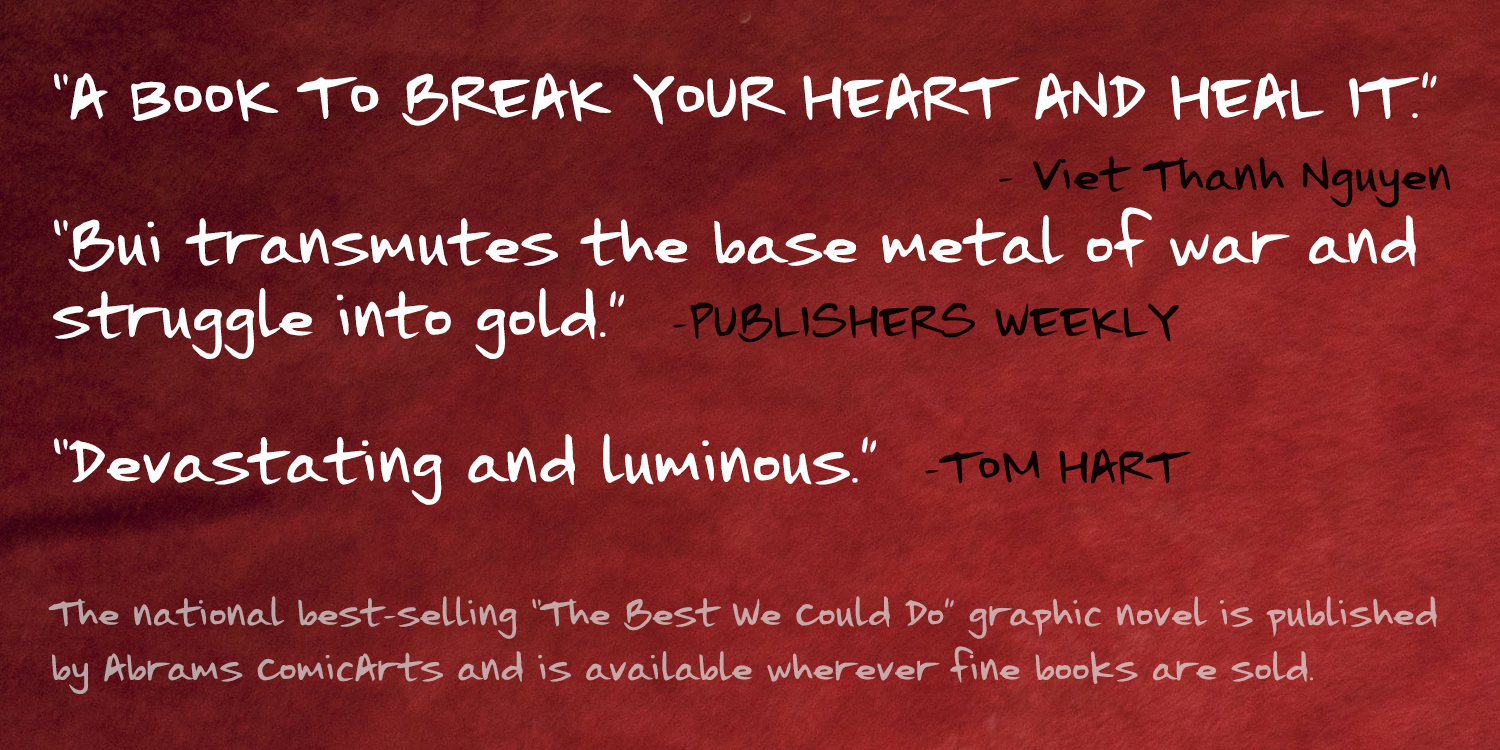
The Best We Could Do Font is perfect for inspirational poster designs, motivational book covers, personal development materials, heartfelt memoir publications, resilience-focused campaigns, community support graphics, honest testimonial layouts, authentic storytelling projects, emotional healing resources, and genuine life journey documentation. This meaningful typeface excels in applications where human resilience and heartfelt authenticity need to be communicated with emotional honesty and compassionate understanding that honors the complexity of real human experiences.
What makes The Best We Could Do Font exciting is its extraordinary ability to convey deep emotional authenticity and human vulnerability through its thoughtfully crafted letterforms that seem to carry the weight of lived experience and the strength found in honest reflection. The font embodies the spirit of genuine human effort and resilient determination with its balanced construction and compassionate proportions that suggest the courage required to face life's challenges with grace. Its carefully considered character details and empathetic personality create an atmosphere of understanding acceptance that resonates with people who have faced difficulties and found strength in their struggles.
The Best We Could Do Font family typically includes Regular and Bold weights, each maintaining the signature emotional authenticity and compassionate characteristics. Some versions offer Italic variants that enhance the reflective quality, alternative character sets with expressive elements, and special symbols that amplify the human connection. The family may also include condensed styles for intimate layouts and display cuts optimized for powerful emotional impact in storytelling and testimonial applications.
Whether you're creating personal narrative projects, community support materials, or authentic human interest content, The Best We Could Do Font Free Download delivers the perfect emotional resonance your heartfelt projects deserve. Its compassionate character and authentic styling make it an invaluable choice for therapists, memoir writers, and organizations working in mental health, personal development, and community support sectors where genuine human connection and emotional authenticity are essential for creating meaningful relationships that honor the full spectrum of human experience.